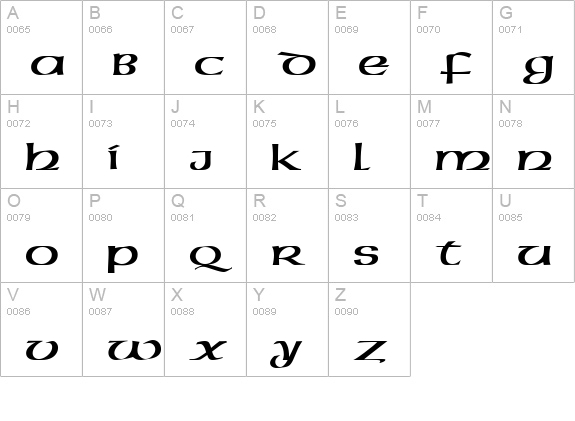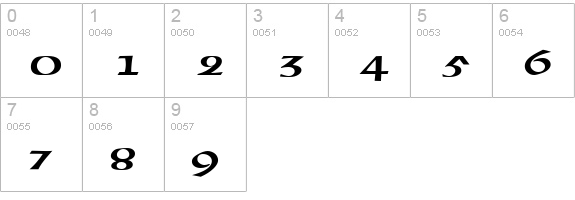
Celtic-Extended Normal Font Details
Celtic-Extended Normal is the standard, neutral, extended-width variant in the Celtic typeface family \xE2\x80\x94 well suited to general body text, paragraphs, and standard typographic work.
The Celtic-Extended Normal font is a beautifully crafted typeface that exudes elegance and charm. Its intricate Celtic-inspired design adds a touch of mystique to any project, making it perfect for adding a unique flair to your designs. This font features elongated strokes and intricate details that give it a distinct and eye-catching appearance. Best of all, the Celtic-Extended Normal font is completely free to download at FontsMarket.com. Whether you're looking to add a touch of Celtic charm to your designs or simply want to experiment with a new typeface, this font is a fantastic choice. Download the Celtic-Extended Normal font today and let your creativity soar with this stunning and versatile typeface.